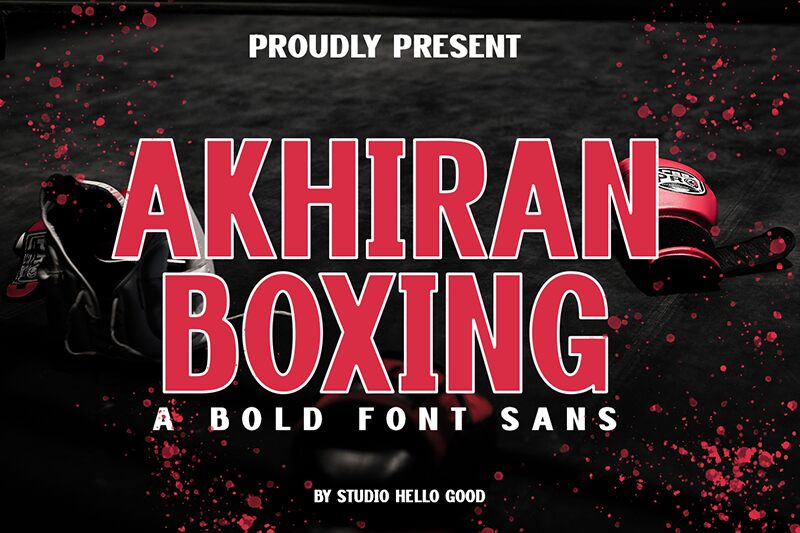
Akhiran Boxing font by Studio Hello Good showcases a clean, modern, and impactful look that leaves a lasting impression. This free font is designed with athleticism and assertiveness in mind, making it stand out in contemporary projects. Both commanding and attention-grabbing, its assertive style works seamlessly in a variety of settings, fitting well into sports branding and other modern applications.
Akhiran Boxing shines in projects such as logos, athletic wear, posters, headlines, digital media, websites, advertising campaigns, packaging, product design, and even video game typography. Its majestic appeal offers designers a powerful tool in their creative arsenal.